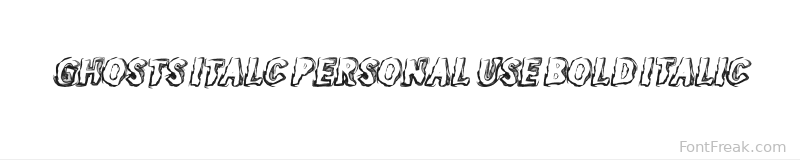
GHOSTS ITALC PERSONAL USE Bold Italic
About GHOSTS ITALC PERSONAL USE Bold Italic
GHOSTS ITALC PERSONAL USE Bold Italic by Billy Argel Fonts is a striking display typeface that captures attention with its unique, artistic flair. This font falls into the decorative category, characterized by its bold, italicized strokes that convey a sense of movement and energy. The visual style features a playful design, with exaggerated curves and sharp angles that create a whimsical yet sophisticated appearance. The stroke weight is substantial, providing a strong presence, while the contrast between thick and thin lines adds depth and dynamic interest to the text.
This font is particularly well-suited for various creative applications. It shines in contexts such as movie posters and promotional materials, where its eye-catching design can draw viewers in. Additionally, it works beautifully for event invitations, especially those with a fun or informal theme, such as birthday parties or Halloween celebrations. Restaurant menus can also benefit from its bold statement, adding a unique touch to the overall dining experience. Graphic designers and content creators will find GHOSTS ITALC PERSONAL USE Bold Italic to be a versatile choice for projects that require a blend of creativity and readability.
Targeting graphic designers, small business owners, and content creators, this font allows for the expression of individuality and style in various design projects. The playful yet bold nature of GHOSTS ITALC makes it an excellent choice for anyone looking to make a memorable impression.
In a crowded marketplace of fonts, GHOSTS ITALC PERSONAL USE Bold Italic stands out due to its distinctive character and bold visual appeal. Its unique artistic style combined with the option for a free download makes it an enticing choice for those seeking to infuse their work with personality and flair.